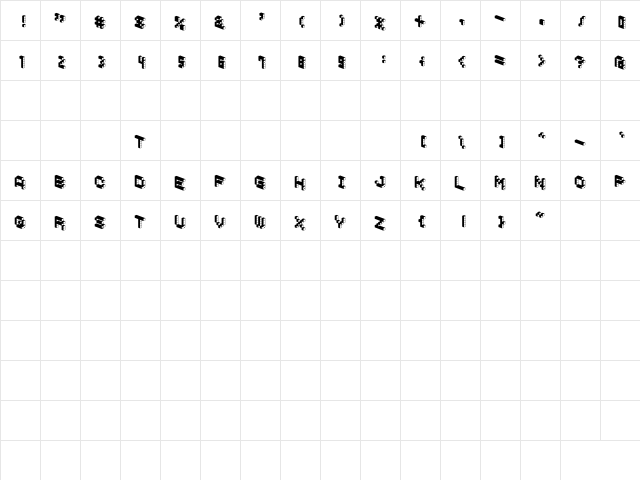
DemonCubicBlockFont Dark Regular
Design Context for DemonCubicBlockFont Dark Typeface
DemonCubicBlockFont Dark is a composed and adaptable typeface that performs quietly and consistently across a wide range of design contexts.